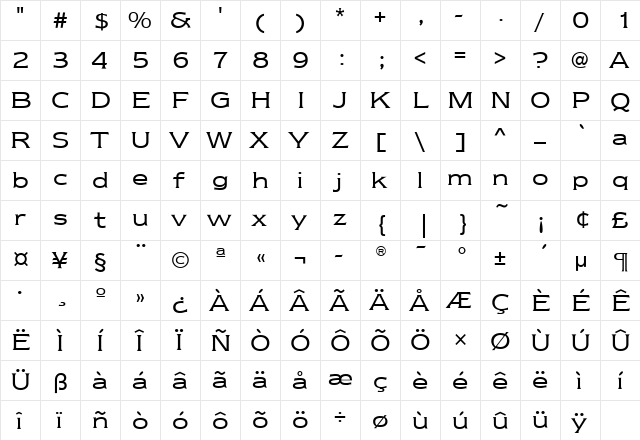
NewtextBookITC Medium
Design Context for NewtextBookITC Typeface
NewtextBookITC offers clean, dependable letterforms without strong stylistic allegiance, making it a practical choice for designers who need flexibility.
Pro Tip: Use NewtextBookITC in both headline and body roles to test its range before committing to a single application.